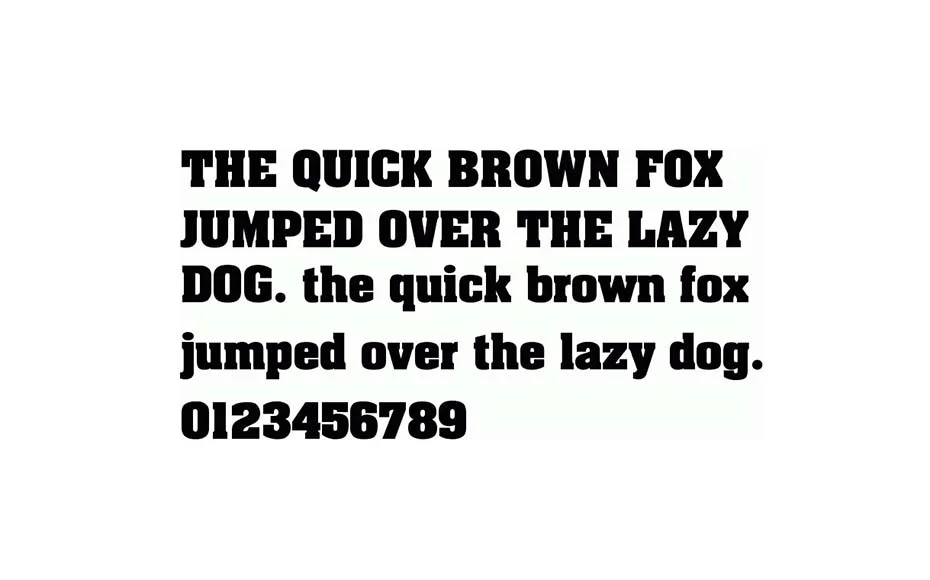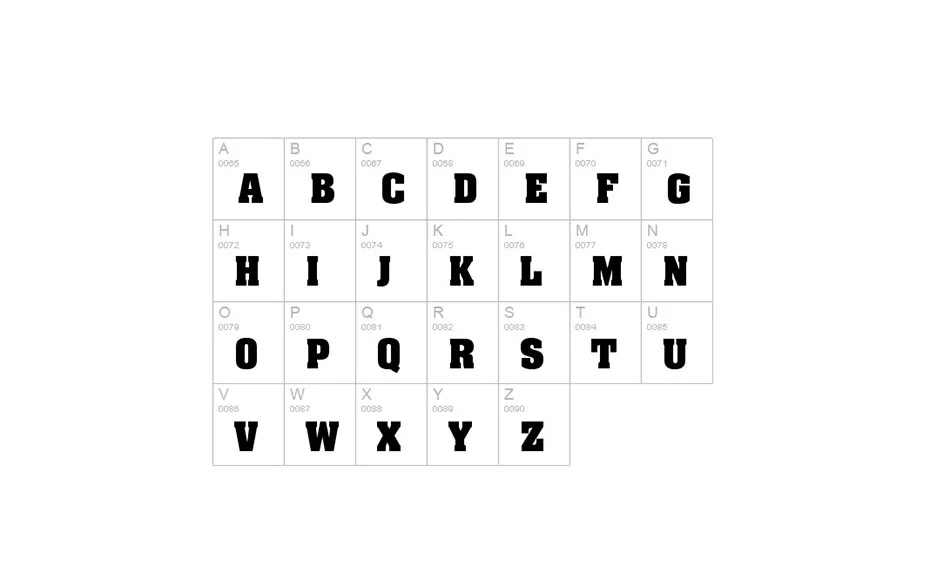
Aachen Font is a slab serif font that featuring a bold and solid structure. It is just because of the thick strokes put by the designer throughout the typeface.
A well-known fonts company ITC has created it for the first time in 1969. While Alan Meeks & Colin Brignall are the font designer of Aachen font.
It has bold texture has created with proper baselines and padding just to maintains the professional look. So, truly it can be used for professional work without a doubt.
All letters are created with full concentration. That’s why they have proper height and width along with normal space between letters. So, feel free to use it everywhere.
Just because of its bold texture, you can create headings, cards, logos, labels, shopping bags, billboards, as well as many other places. Where you find it better.
This remarkable font has great potential because it has to support up to 33 languages.
Afrikaans, Basque, Breton, Catalan, Croatian, Czech, Danish, Dutch, English, Estonian, Finnish, French, Gaelic (Irish, Scots), German, Hungarian, Icelandic, Indonesian, Irish, Italian, Latvian, Lithuanian, Norwegian, Polish, Portuguese, Romanian, Saami (Southern), Serbian, Slovak, Slovenian, Spanish, Swahili, Swedish, Turkish